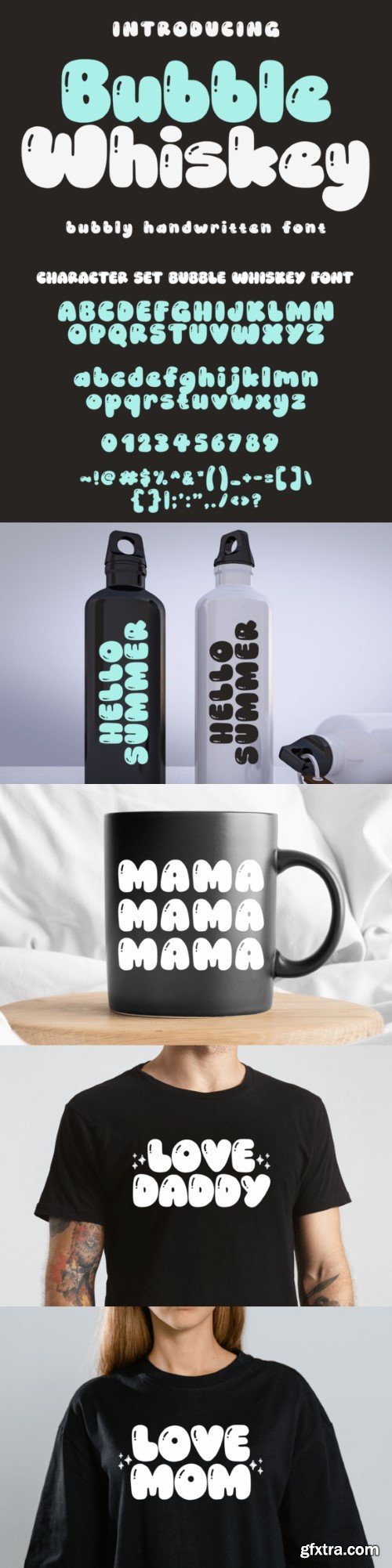
泡泡威士忌字体
Bubble Whiskey is a cute and adorable display bubble font, perfect for designs that need a cool accent. Bubble Whiskey is perfect for t-shirts, tumblers, packaging, merchandise, mugs, and much more!